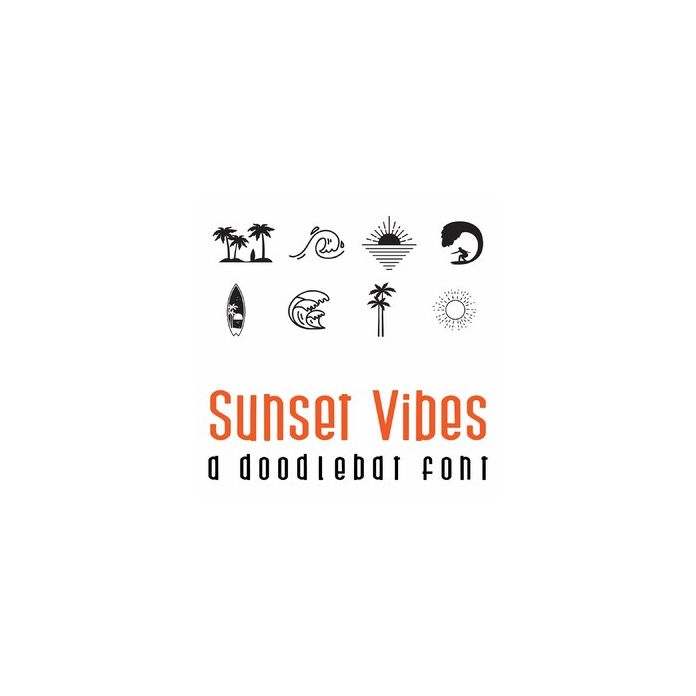
This fun doodlebat font features 26 summer sunset surf images. Perfect for Summer, cards, gifts, decor, crafts, scrap book pages, planner stickers and more!